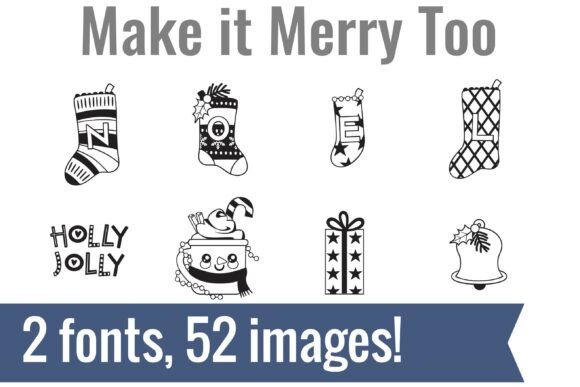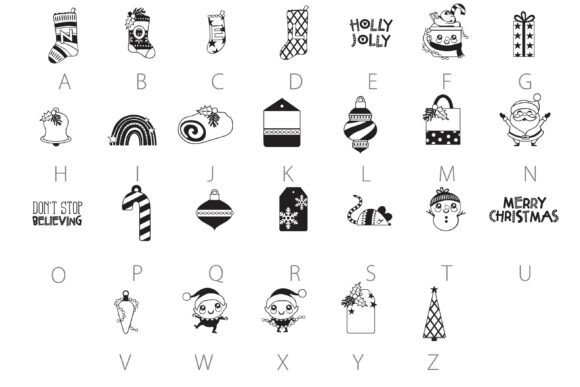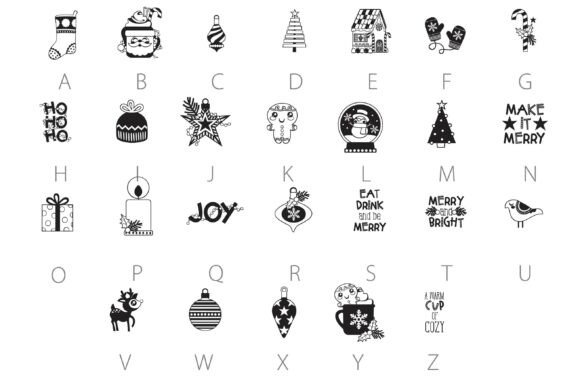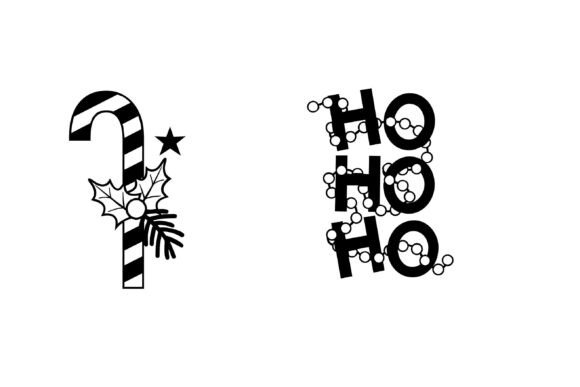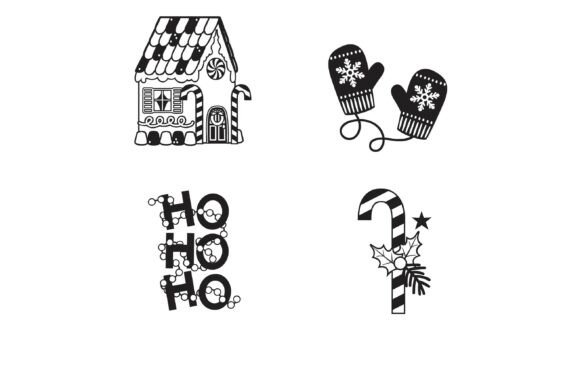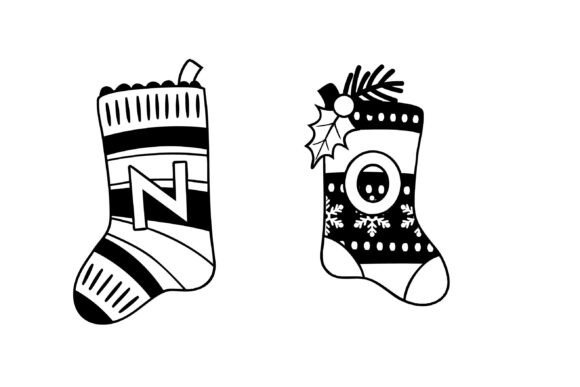
Introduction to Make It Merry Dingbats Font
Unlock endless creativity with two perfectly coordinated fonts.
There are two dingbat fonts in this bundle, both featuring traditional Christmas decor, stockings, and more Capture the essence of classic holiday charm with the Make it Merry font set , a timeless collection of two dingbat typefaces that offer a beautiful array of winter icons.
Key Features of Make It Merry Dingbats Font